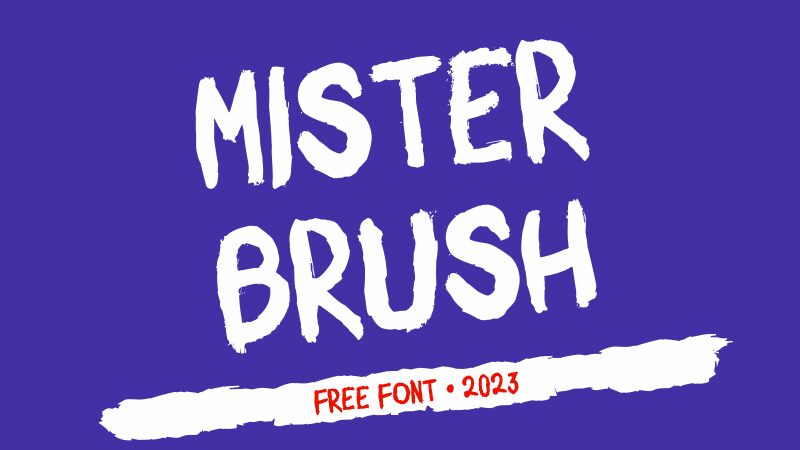
Mister Brush, designed by GGBotNet, is a captivating semi-bold brush font that exudes creativity and spontaneity. With its expressive strokes and handcrafted charm, this font is perfect for projects that require a touch of artistic flair.
Whether it's designing eye-catching logos or crafting unique invitations, Mister Brush adds a playful yet sophisticated vibe to any design. Its versatility makes it suitable for branding, packaging, social media graphics, and more.
Let your imagination run wild with Mister Brush and bring your designs to life with its dynamic and energetic style.